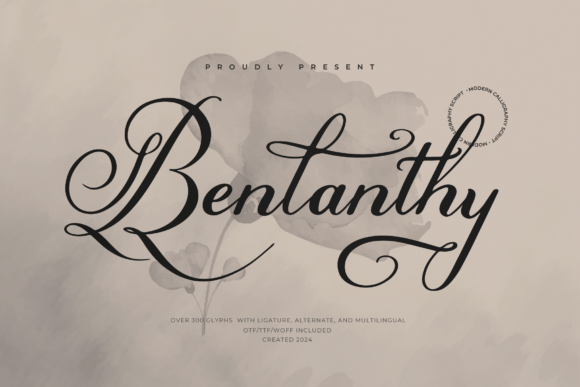
The Elegance of Benlanthy Font: A Designer’s Delight
I still remember the project that led me to discover the stunning Benlanthy font. I was working on a wedding invitation design, and my client was adamant about having a elegant, handwritten-style text that would set the tone for their special day. As I scrolled through font after font, nothing seemed quite right – until I stumbled upon Benlanthy. Its flowing, smooth letters immediately caught my eye, and I knew I had found the perfect fit.
An Honest Review of Benlanthy Font
What I Love About Benlanthy ✨
- 💫 Elegant and stylish modern calligraphy script
- ✅ Perfect for invitations, logos, and decorative designs
- 🎨 Delicate and artistic feel, great for creating beautiful, handwritten-style text
- 🌈 Highly versatile, suitable for a wide range of design projects
While Benlanthy is an exceptional font, it’s not without its quirks. For instance:
- 🤔 Some users may find the font a bit too delicate for certain design projects, such as bold or large-scale applications.
- ⚠️ As with many script fonts, it may not be the best choice for body text or long-form content.
- Explore stylistic alternates and swashes to add more flair to your design.
The Story Behind Benlanthy Font
Benlanthy font was designed with the intention of creating a beautiful, elegant script that would evoke the feeling of handwritten calligraphy. The designer aimed to craft a font that was both stylish and versatile, suitable for a wide range of design projects. While the exact backstory of Benlanthy may be unknown, its design is undoubtedly inspired by the world of modern calligraphy and the art of beautiful handwriting.
Q: What type of projects is Benlanthy font best suited for?
A: Benlanthy font is perfect for projects that require a elegant, handwritten-style text, such as invitations, logos, and decorative designs.
Q: Is Benlanthy font suitable for body text or long-form content?
A: While Benlanthy font is beautiful and elegant, it’s not the best choice for body text or long-form content. Its delicate and artistic feel is better suited for headlines, titles, and short bursts of text.